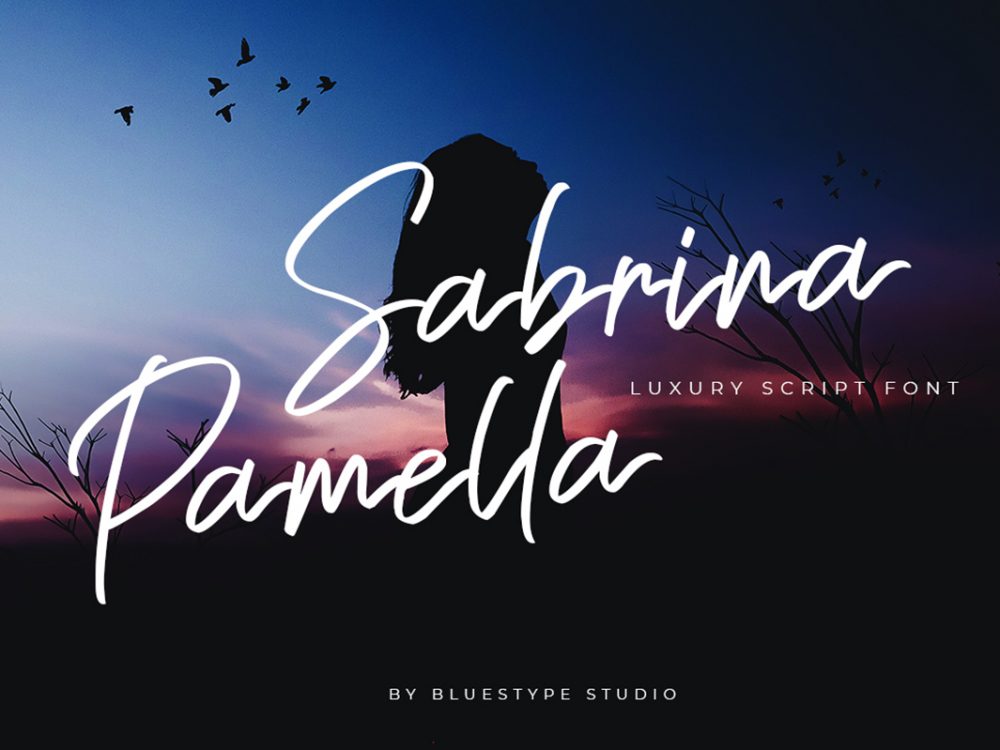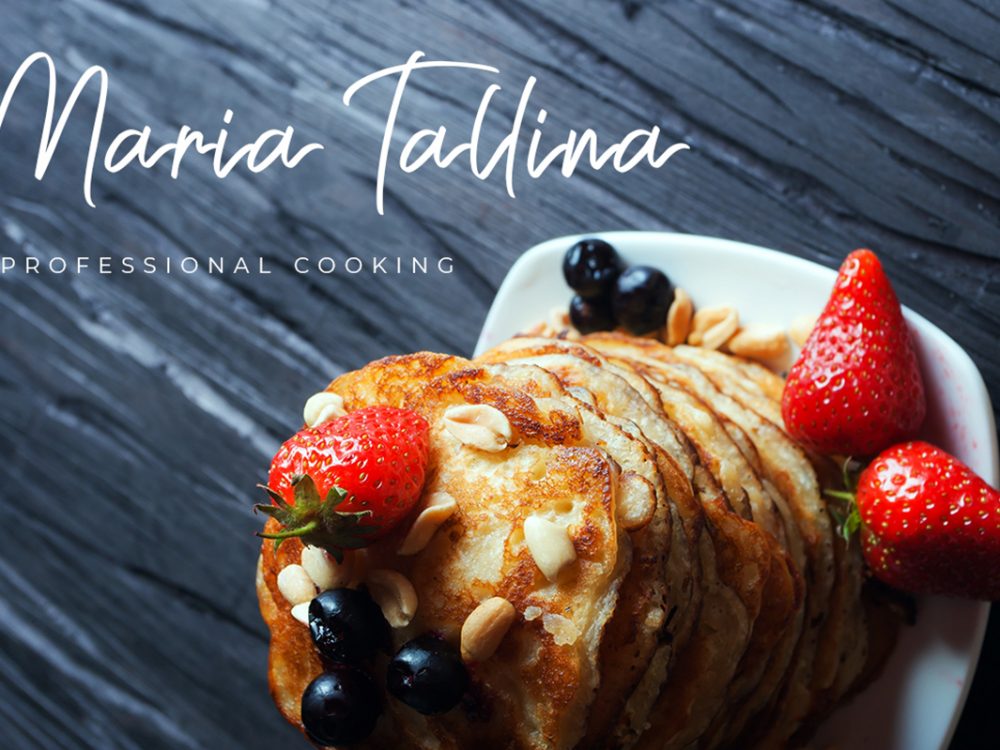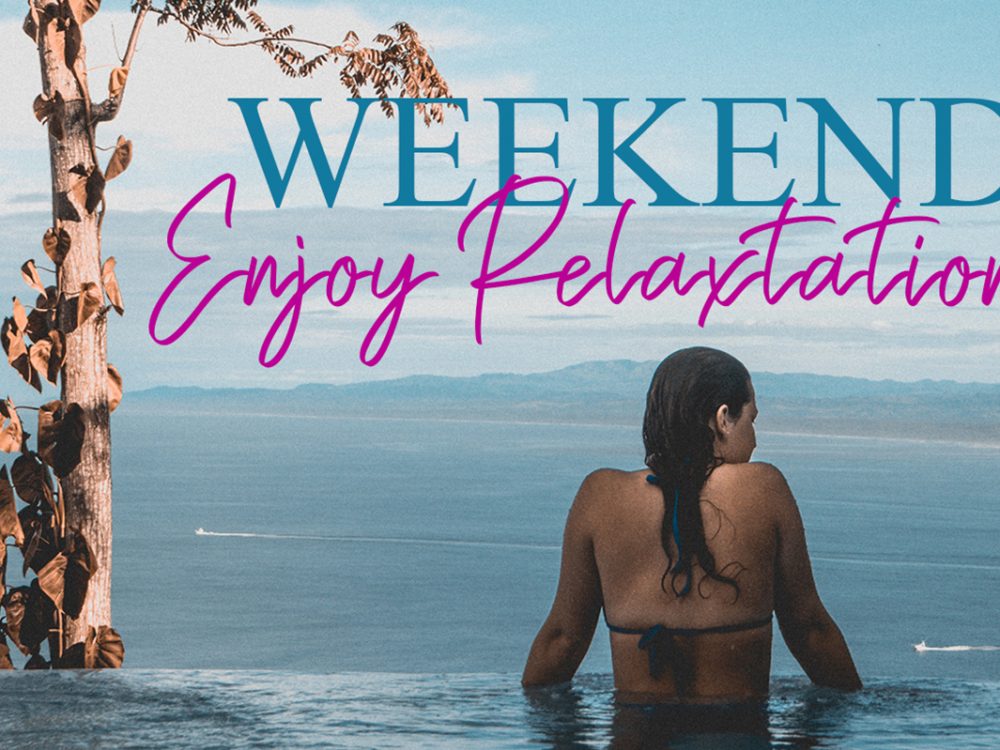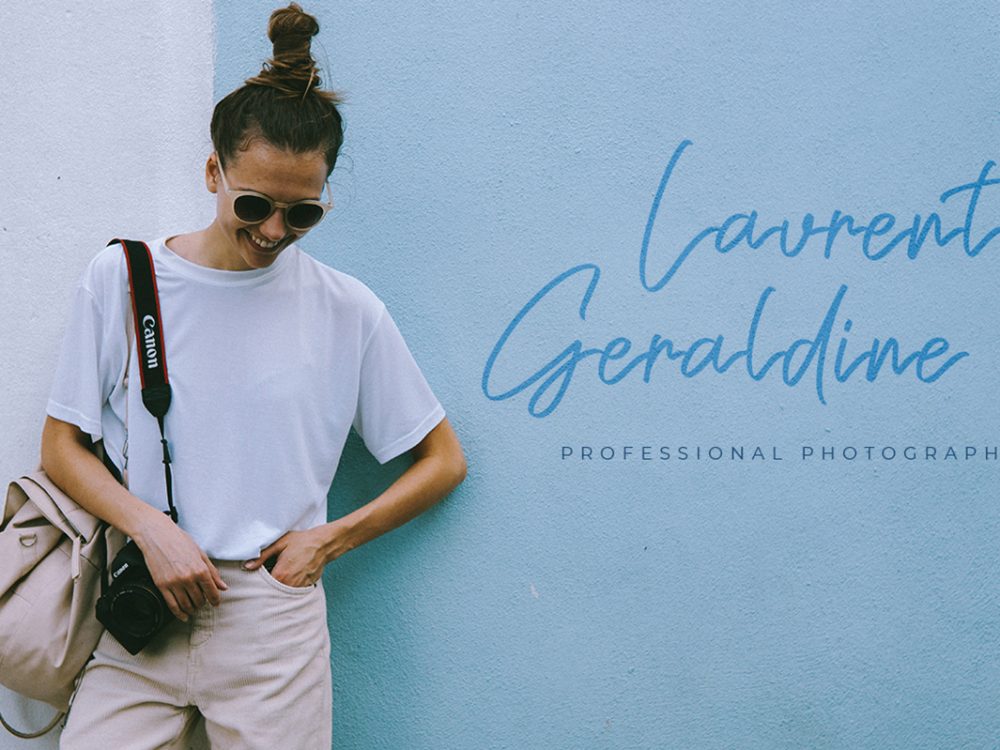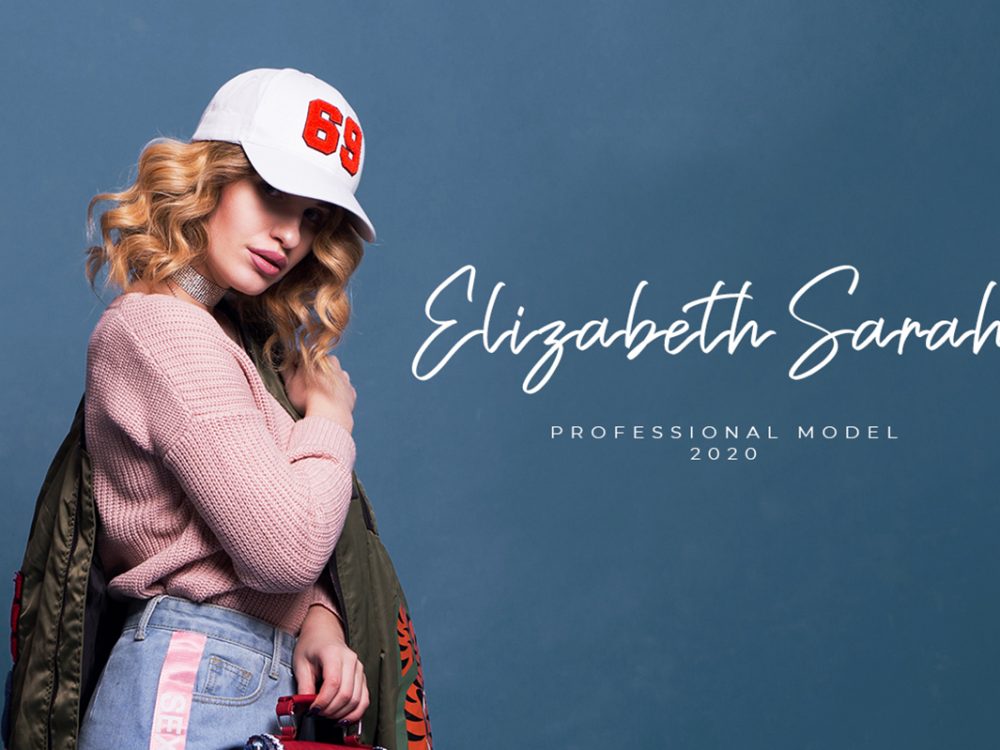
Sabrina Pamella Free Font
Sabrina Pamella Free Font is a scripted handwritten font that has a calligraphic style and is well suited for creating various design projects. You can use this font to create memorable posters, wedding invitations, cards, branding, flyers, and more. Improve the quality and increase the popularity of your design projects using this font. If you like it don’t forget to check out the full version.